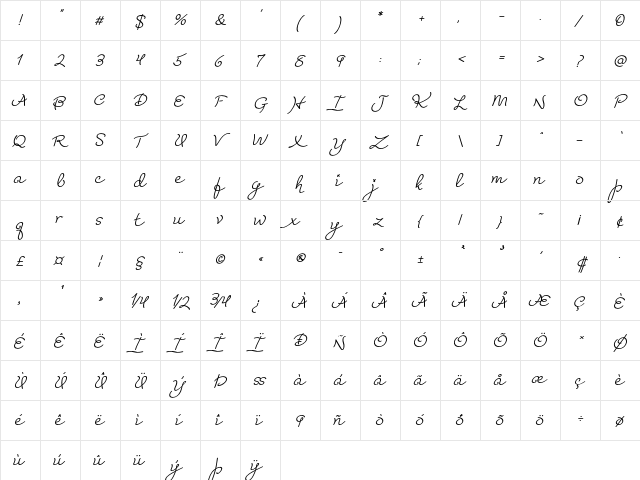
Madeleine Script Script
| Style | Script |
| Foundry | Jeremy Dooley |
Design Context for Madeleine Script Typeface
Madeleine Script brings a calligraphic fluidity to the page — its connecting strokes and expressive curves give it an unmistakably human quality.
Font Pairing: Combine Madeleine Script with a simple geometric sans for maximum contrast — the tension between flowing curves and clean structure is a classic typographic pairing.